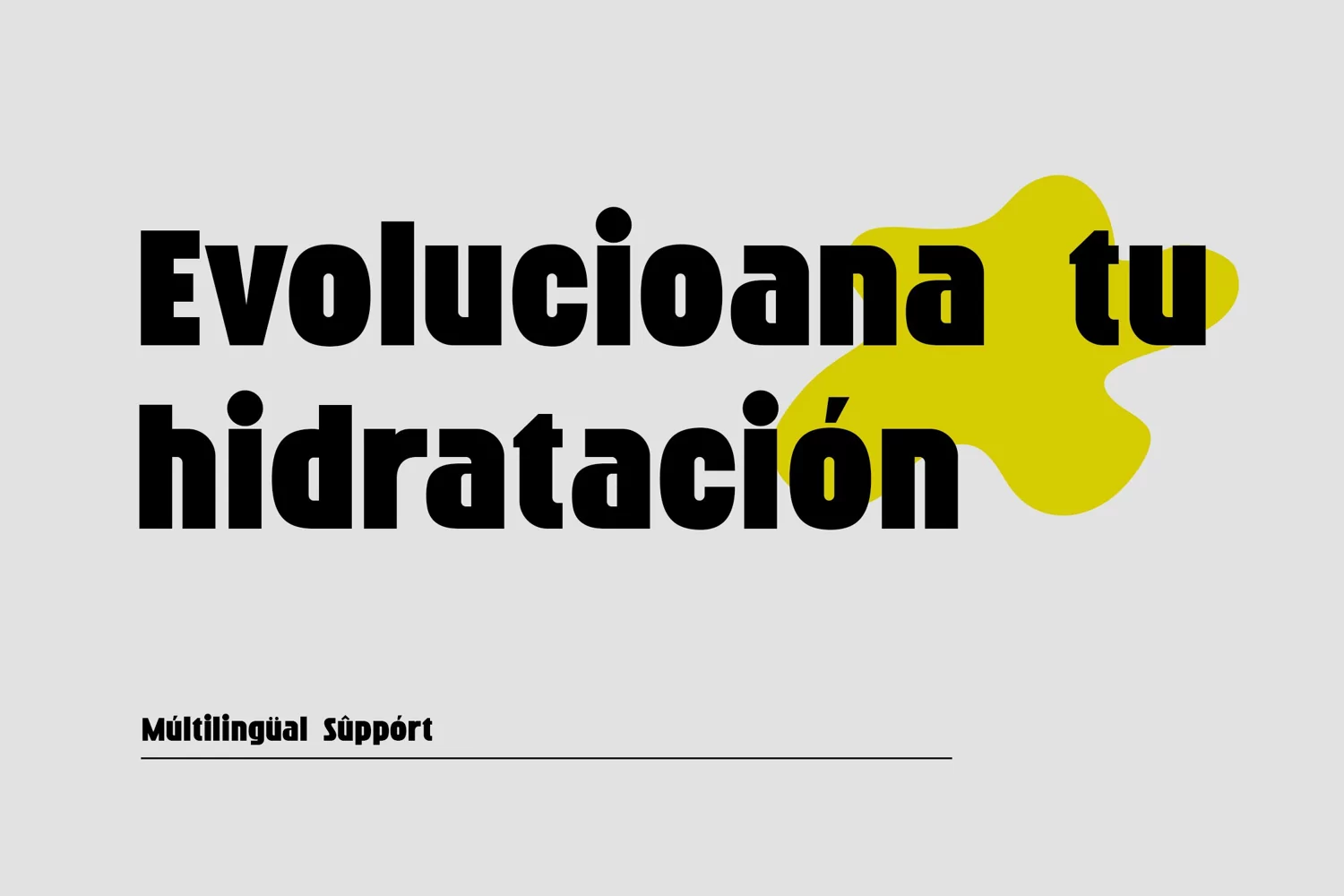
Sporadic - Modern Sport Sans - Bold and Heavy Sans Serif - Sport Fashion Branding Display sans serif Font
Sporadic Sans Serif Font is perfect for your up coming projects. Such as logo branding, editorial design, stationery design, fashion, sport design, startup industry, music poster, blog design, website, apps design, UI UX, modern advertising design, editorial, magazine, book/cover title, special events and any more.